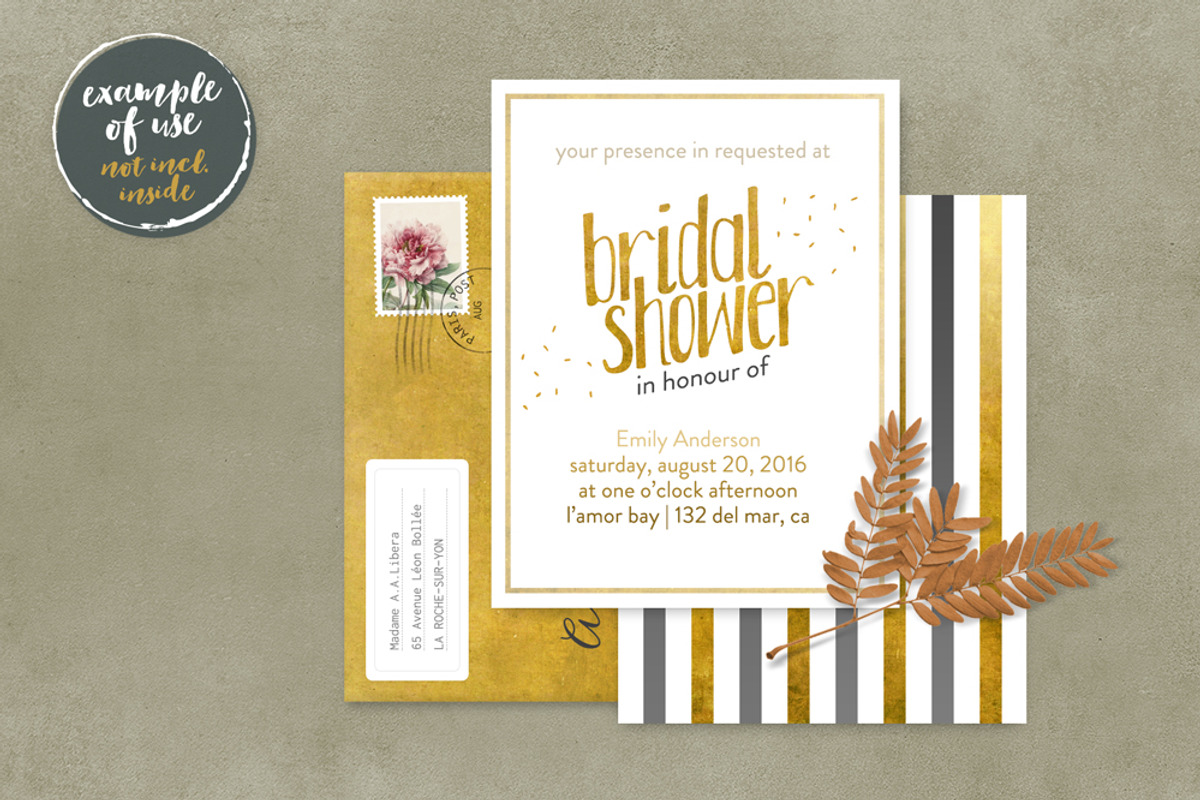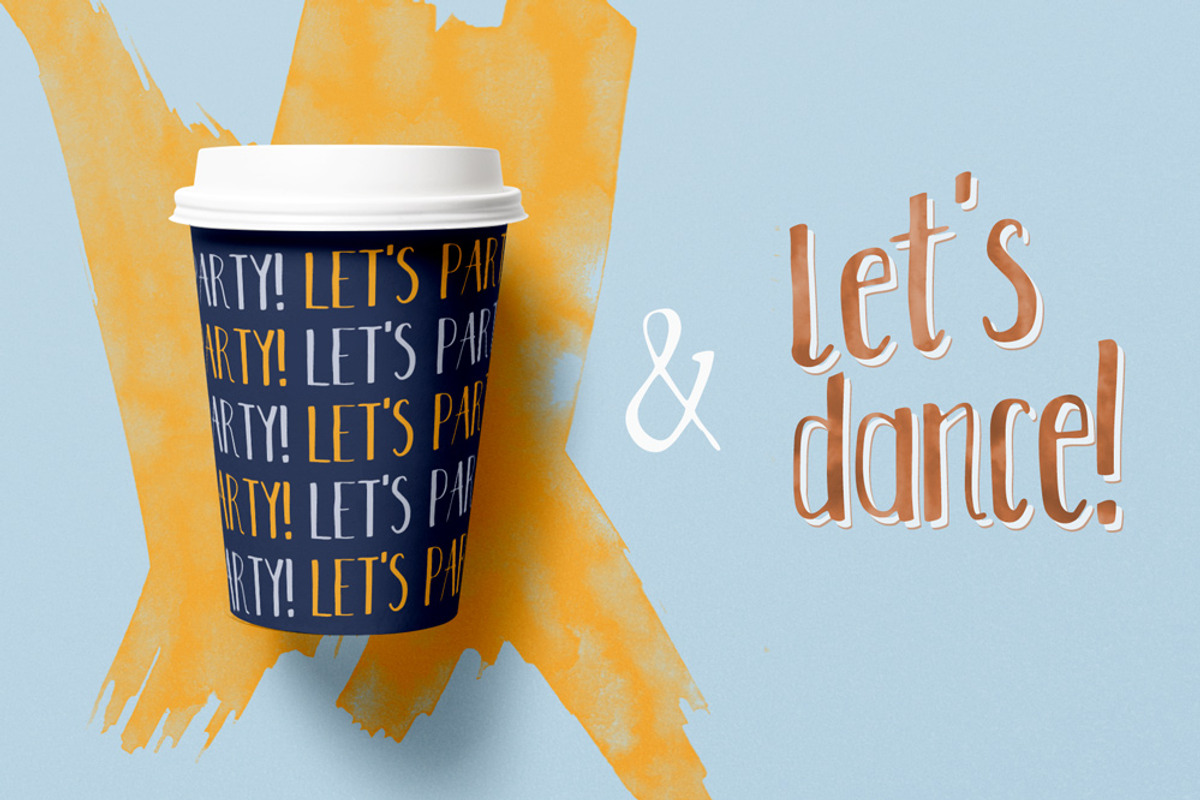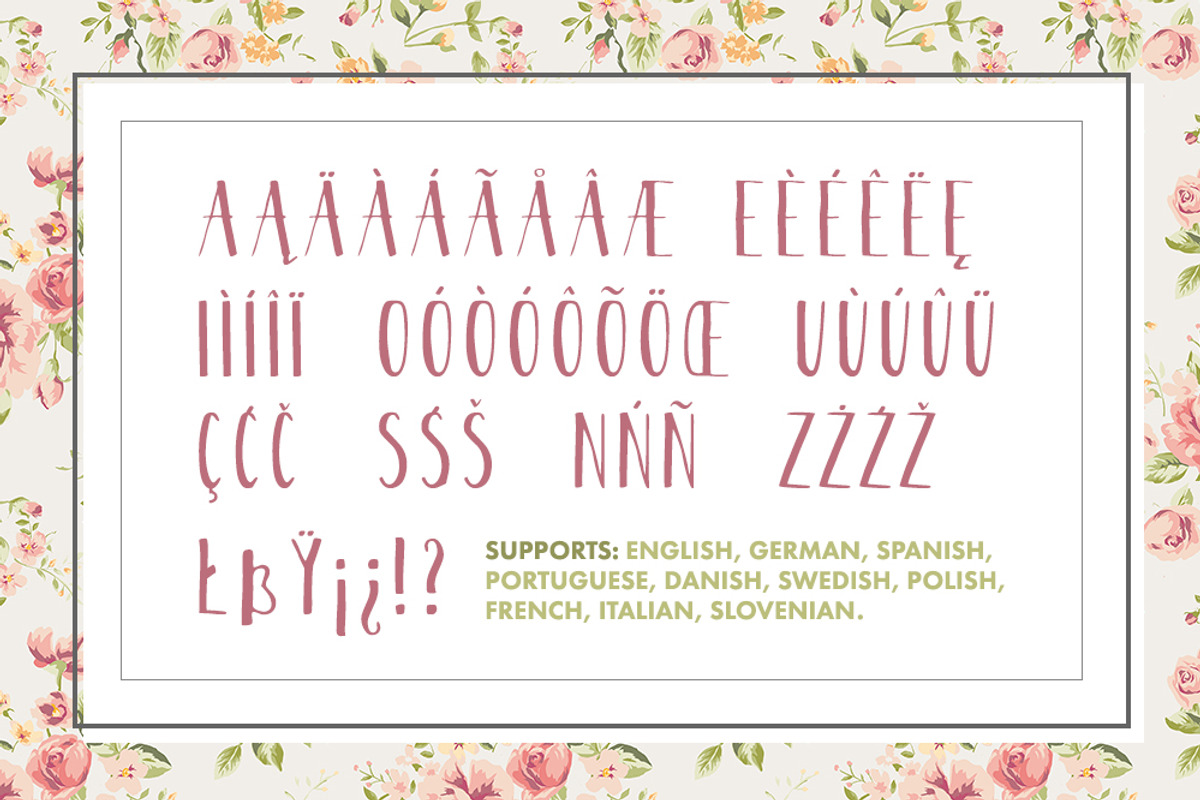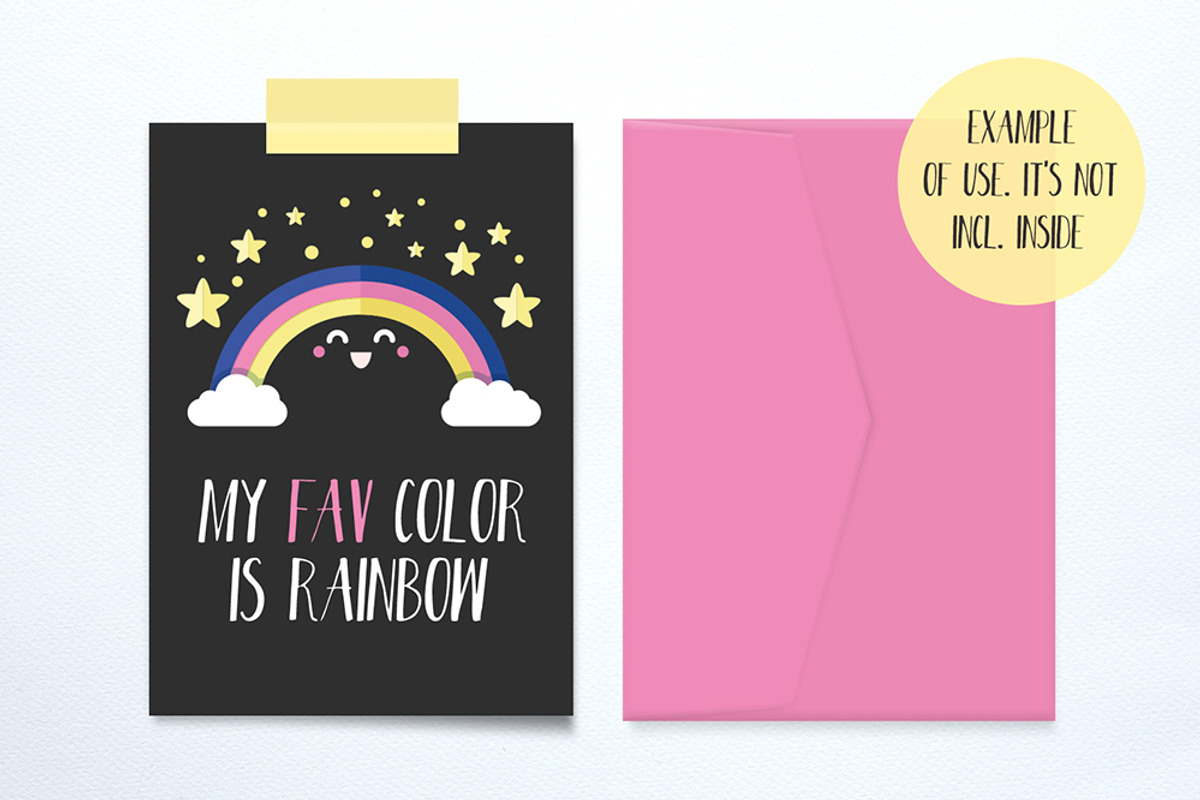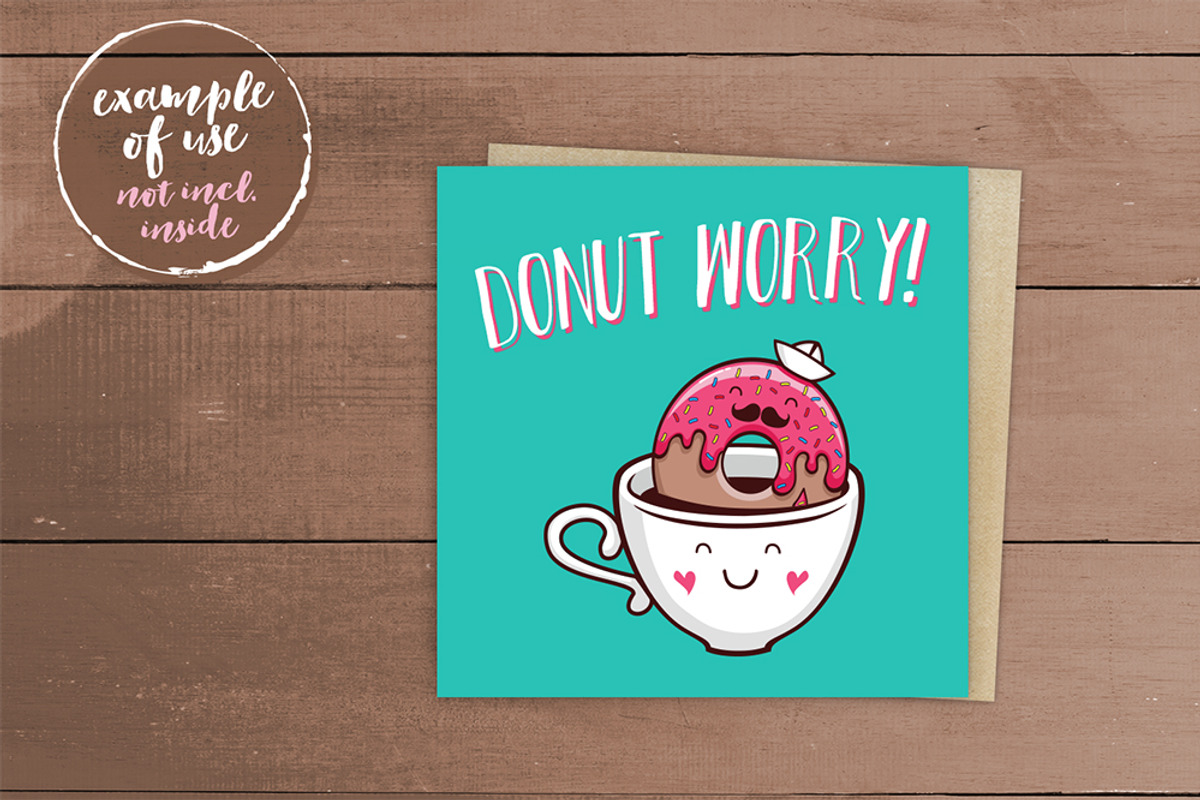
Tinta Negro Font
Tinta Negro Font by Frisk Shop is a font selected for branding, posters, packaging, typography.
- Tinta Negro which takes the name from Spanish is hand-drawn multilingual font designed with love.
Why Tinta Negro Font is worth a look
Tinta Negro Font by Frisk Shop fits naturally into Branding, posters, packaging, typography.